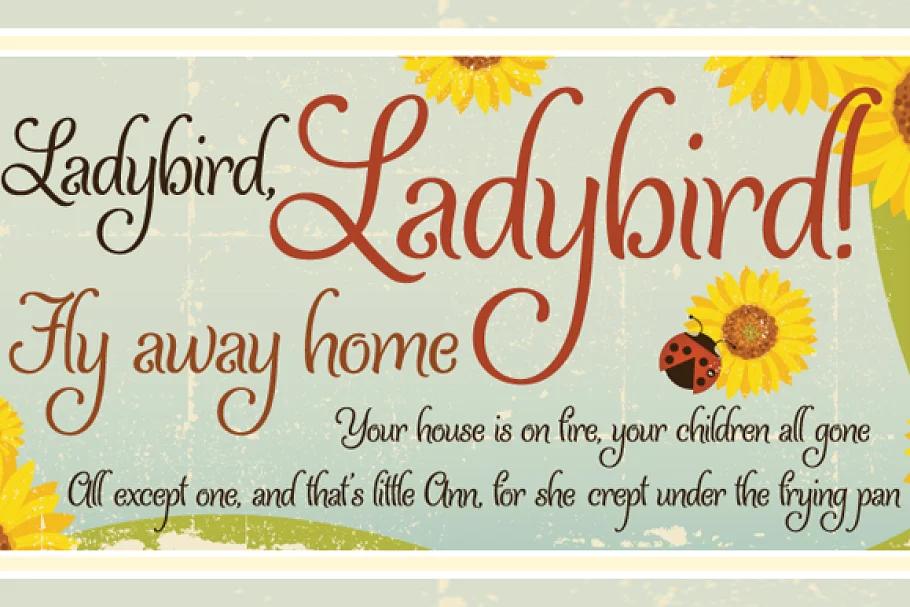
Ladybird Font Description
The fittingly named Ladybird sprouts gently arcing ascenders and cutely curved descenders from its cozy, compact letterforms. An unabashedly playful face for joyful, summery, and youth-oriented settings. Includes a sprinkling of ligatures and alternates.